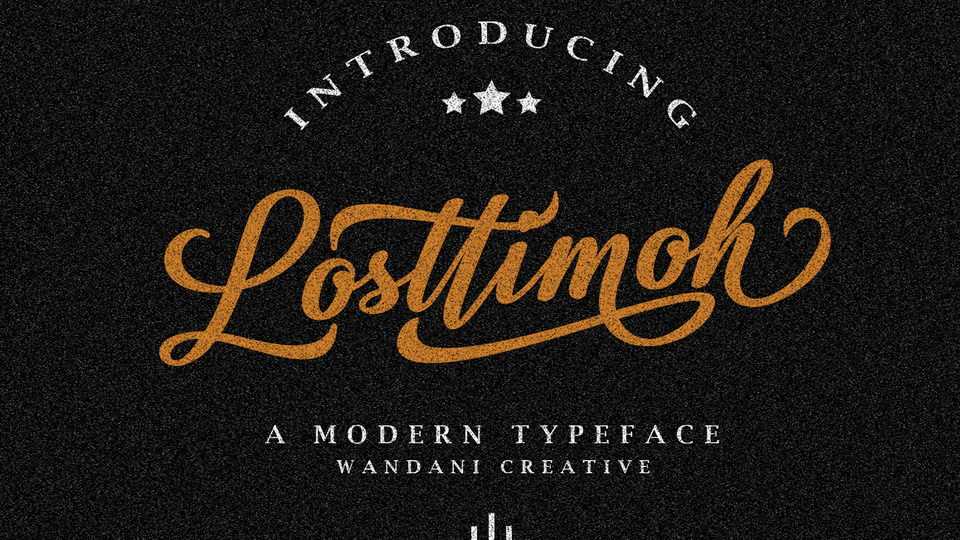
Download Losttimoh font, a modern handwritten script with a personality, designed to enhance the beauty of your design. Use Losttimoh for a logo, badge, packaging, title, poster, t-shirt / clothing, greeting cards, and wedding invitations.
Designer: Wandani Creative